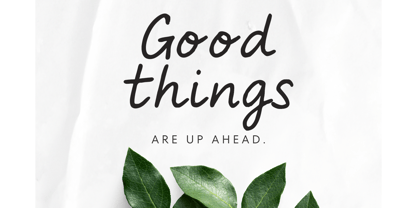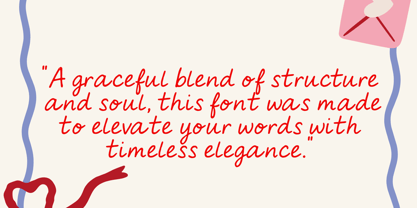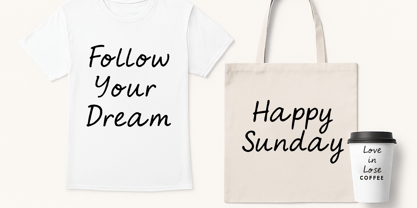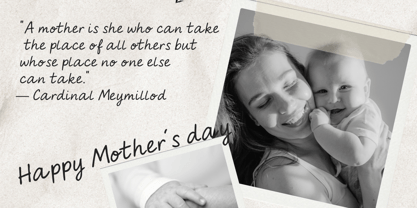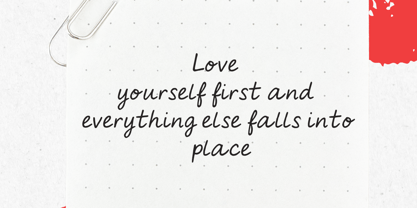
Lively Note
by Cocodesign
The Lively Note Font Family was designed by Muhammad Zaini and published by Cocodesign. Lively Note contains 1 styles. More about this family
Lively Note is a clean and casual handwritten font designed for versatile use across digital and print media. Featuring smooth strokes and a natural flow, it provides a relaxed yet legible look suitable for various design purposes.
Designers: Muhammad Zaini
Foundry: Cocodesign